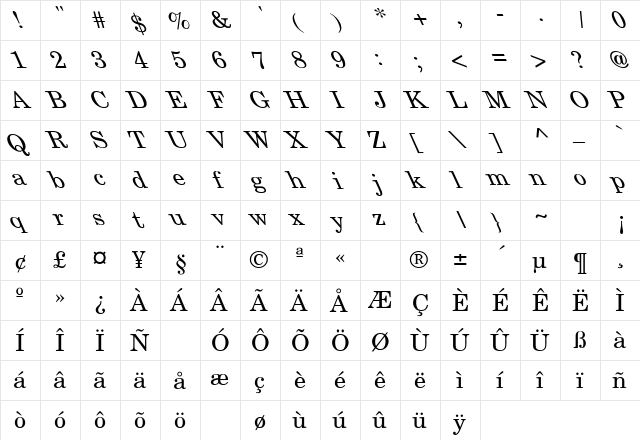
New Century Schlbk-Roman Left Regular Font Preview
New Century Schlbk-Roman Left Regular
Design Context for New Century Schlbk-Roman Left Typeface
New Century Schlbk-Roman Left takes a measured approach to typography — its balanced proportions and neutral character make it a reliable workhorse for both digital and print work.